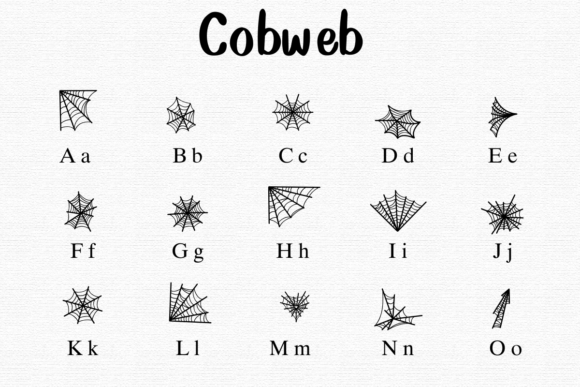
Cobweb Font: Elevate Your Creative Projects with a Unique Sketch Style
In the world of typography, fonts play a crucial role in conveying the tone and aesthetic of a project. For those seeking a distinctive and creative edge, the Cobweb Font is an excellent choice. This dingbats font, with its theme and sketch style, is perfect for a variety of applications, from wedding invitations and DIY crafts to decorations, logos, and more. In this article, we’ll explore the features and benefits of the Cobweb Font and how it can enhance your creative projects.
What is Cobweb Font?
Cobweb Font is a unique dingbats font that boasts a charming sketch style. Dingbats fonts, also known as symbol fonts, consist of graphical symbols, shapes, and icons rather than traditional alphabet letters. The Cobweb Font, in particular, features intricate and delicate designs that evoke a sense of whimsy and elegance. Its distinct style makes it an excellent addition to various creative projects, allowing designers and crafters to add a personal touch.
Key Features of Cobweb Font
- Sketch Style: The Cobweb Font features a beautiful sketch style that adds a hand-drawn, organic feel to your projects.
- Dingbats Theme: As a dingbats font, it offers a wide range of symbols, icons, and shapes that can be used to enhance your designs.
- Elegant and Whimsical: The font’s design strikes a perfect balance between elegance and playfulness, making it suitable for various applications.
- Versatile: The Cobweb Font can be used for a multitude of projects, including wedding invitations, DIY crafts, decorations, logos, and more.
Creative Applications of Cobweb Font
The versatility of the Cobweb Font makes it an excellent choice for a wide range of creative projects. Here are some ideas to get you started:
- Wedding Invitations: Add a touch of elegance and whimsy to your wedding invitations with the Cobweb Font. Use it to create custom illustrations, borders, and decorative elements.
- DIY Crafts: The Cobweb Font is perfect for DIY enthusiasts. Use it to create custom labels, cards, and decorations for your craft projects.
- Decorations: Add a personal touch to your home decorations with the Cobweb Font. Use it to create custom wall art, stencils, and decorative accents.
- Logos and Branding: The Cobweb Font can be used to create unique and memorable logos for your business or brand. Its distinctive style will help you stand out from the competition.
Benefits of Using Cobweb Font
The Cobweb Font offers several benefits that make it an attractive choice for designers and crafters:
- Unique Style: The Cobweb Font’s distinctive sketch style sets it apart from other fonts, allowing you to create truly unique and eye-catching designs.
- Ease of Use: As a dingbats font, the Cobweb Font is easy to use and can be incorporated into your projects with minimal effort.
- Customization: The font’s design allows for endless customization possibilities, enabling you to tailor your projects to your specific needs.
- Time-Saving: With the Cobweb Font, you can create professional-looking designs quickly and efficiently, saving you time and effort.
Tips for Using Cobweb Font Effectively
To get the most out of the Cobweb Font, follow these tips:
- Experiment with Sizes and Colors: Play around with different font sizes and colors to find the perfect combination for your project.
- Combine with Other Fonts: Pair the Cobweb Font with other fonts to create visually appealing and dynamic designs.
- Use it Sparingly: While the Cobweb Font is beautiful, it’s best to use it sparingly to avoid overwhelming your design.
- Take Advantage of Dingbats: Make the most of the font’s dingbats theme by incorporating symbols and icons into your design.
The Cobweb Font is a versatile and unique dingbats font that can elevate your creative projects to the next level. Its sketch style and elegant design make it perfect for a wide range of applications, from wedding invitations and DIY crafts to decorations and logos. With its ease of use, customization possibilities, and time-saving benefits, the Cobweb Font is an excellent addition to any designer’s or crafter’s toolkit. So why wait? Explore the creative possibilities of the Cobweb Font today and bring your projects to life with its distinctive style.
- What is the Cobweb Font? The Cobweb Font is a dingbats font with a sketch style theme.
- What can I use the Cobweb Font for? You can use the Cobweb Font for a variety of creative projects, including wedding invitations, DIY crafts, decorations, logos, and more.
- Is the Cobweb Font easy to use? Yes, the Cobweb Font is easy to use and can be incorporated into your projects with minimal effort.
- Can I customize the Cobweb Font? Yes, the Cobweb Font’s design allows for endless customization possibilities.